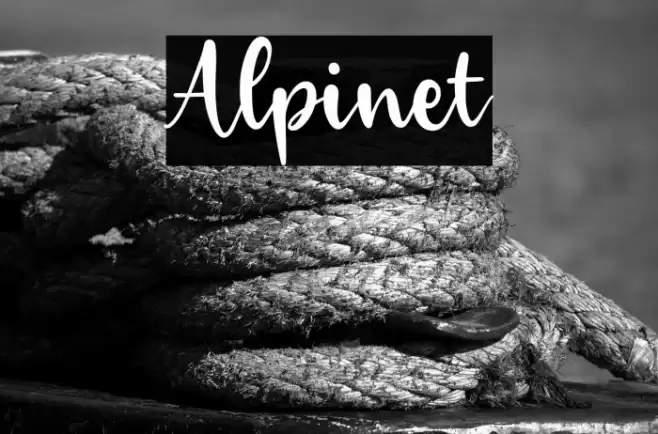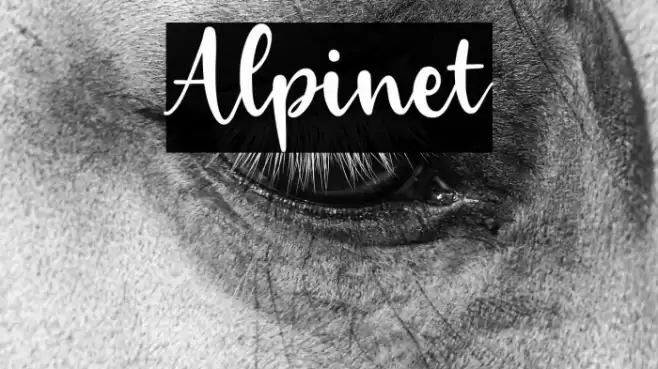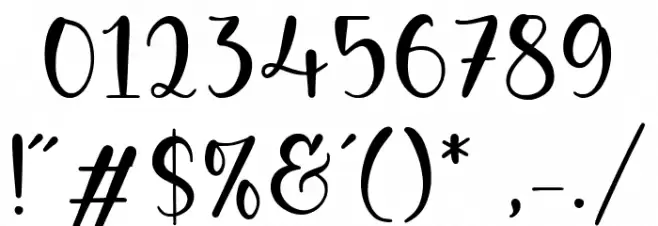
Alpinet Font
Alpinet Description
This font features a lively and flowing script style, characterized by its smooth, cursive letterforms that convey a sense of elegance and fluidity. The uppercase letters are slightly more structured, while the lowercase letters exhibit a playful, handwritten quality. The numerals and special characters maintain the same fluidity, ensuring consistency across all glyphs. This font's design is well-suited for projects that require a personal touch or a sense of sophistication, making it ideal for invitations, greeting cards, and branding materials. The strokes are moderately thick, providing good readability without sacrificing the delicate aesthetic.
A lively, flowing script font with elegant, cursive letterforms from Uncategorized fonts.
- Proposed Projects: Ideal for invitations, greeting cards, branding, and personal projects.
- Overall Style: Elegant, Playful
- Use Case: Headlines, Logos, Invitations